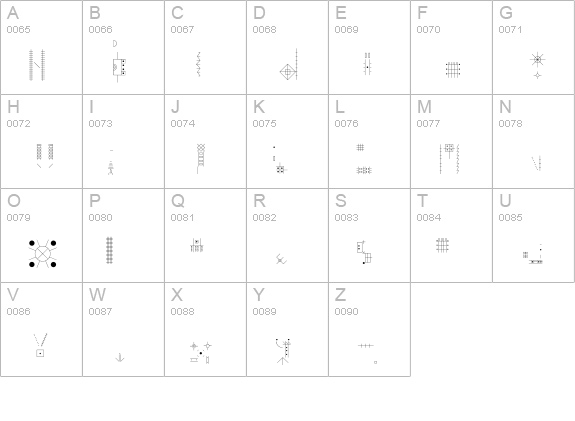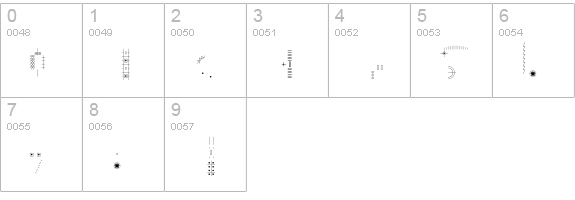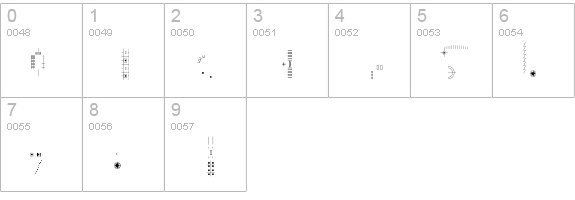
Introducing the DIY-Skeleton font, a unique and creative typeface that adds a touch of edgy sophistication to your design projects. This font features a skeletal design with a modern twist, making it perfect for everything from Halloween-themed designs to sleek and minimalist branding. The DIY-Skeleton font is a versatile choice for graphic designers, artists, and creatives looking to make a bold statement with their typography. Its intricate details and stylish aesthetic will make your projects stand out and captivate your audience. Best of all, the DIY-Skeleton font is completely free to download at FontsMarket.com. This means you can easily access this eye-catching font without breaking the bank, allowing you to unleash your creativity without any limitations. Whether you're working on posters, invitations, social media graphics, or any other design project, the DIY-Skeleton font is sure to make a lasting impression. Download it today and start experimenting with this striking typeface to bring your ideas to life.